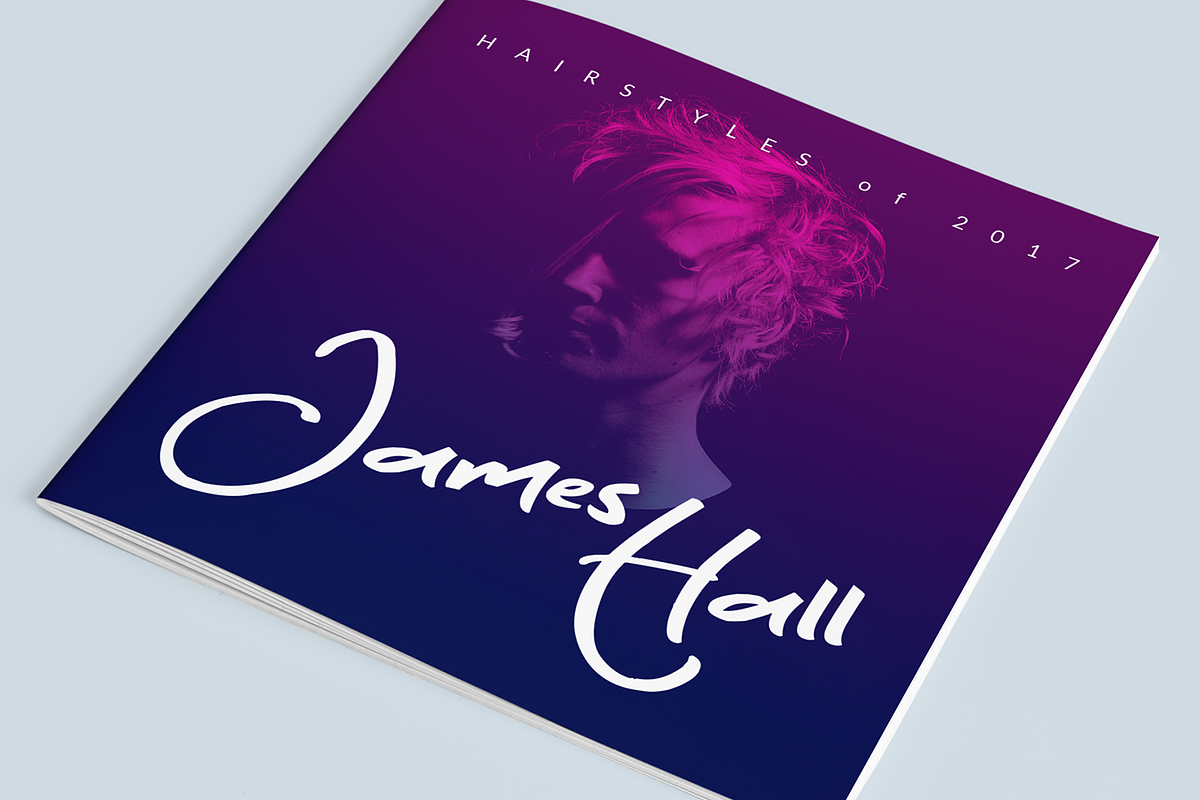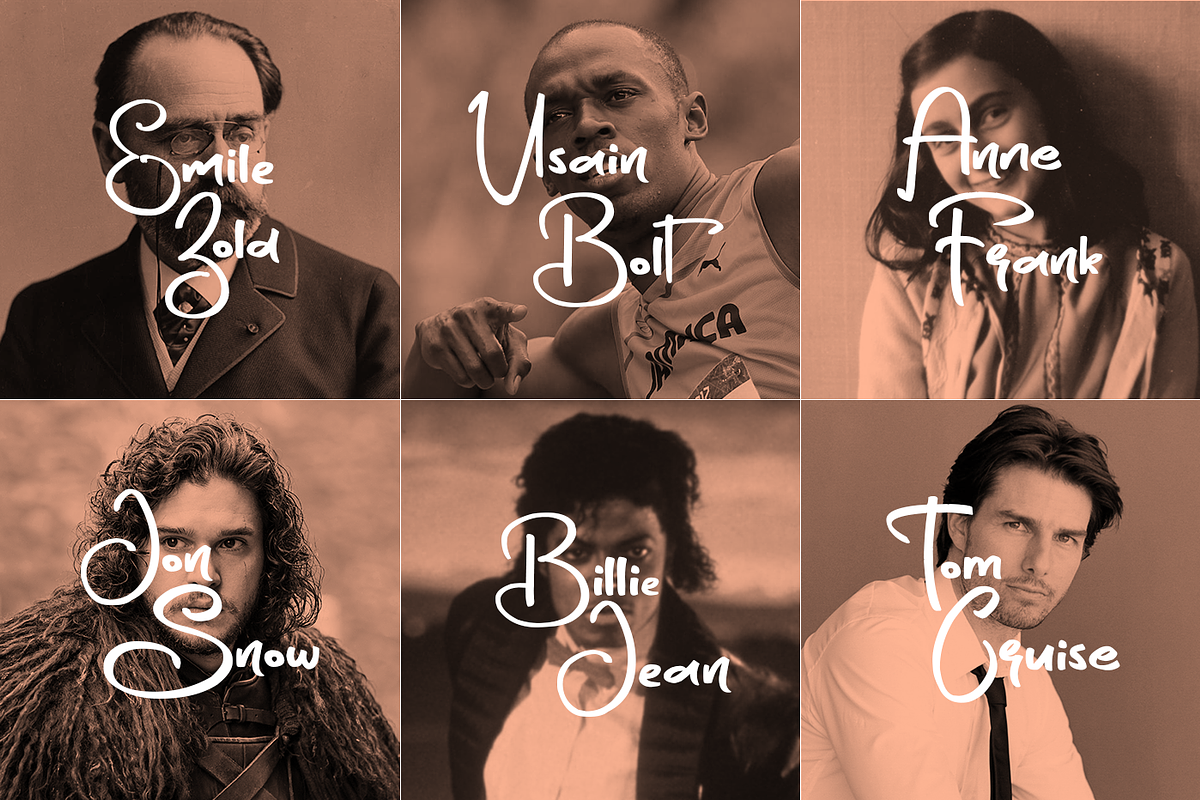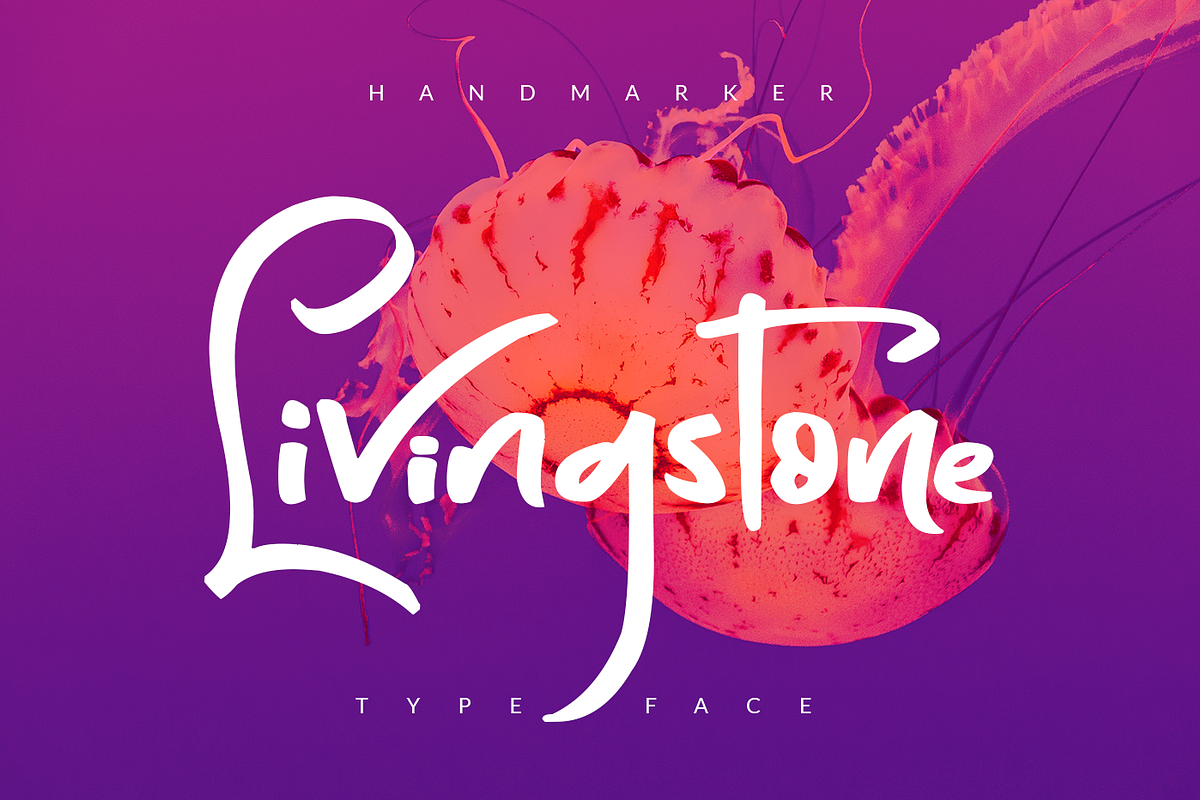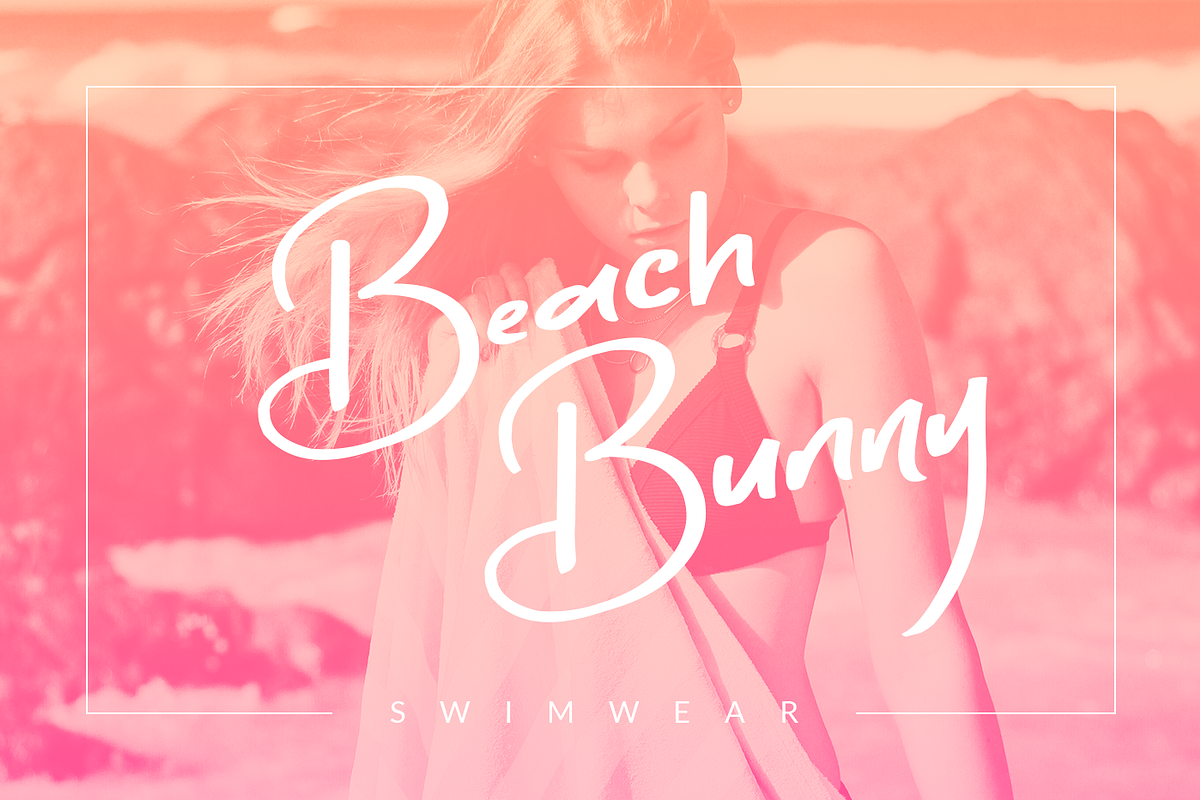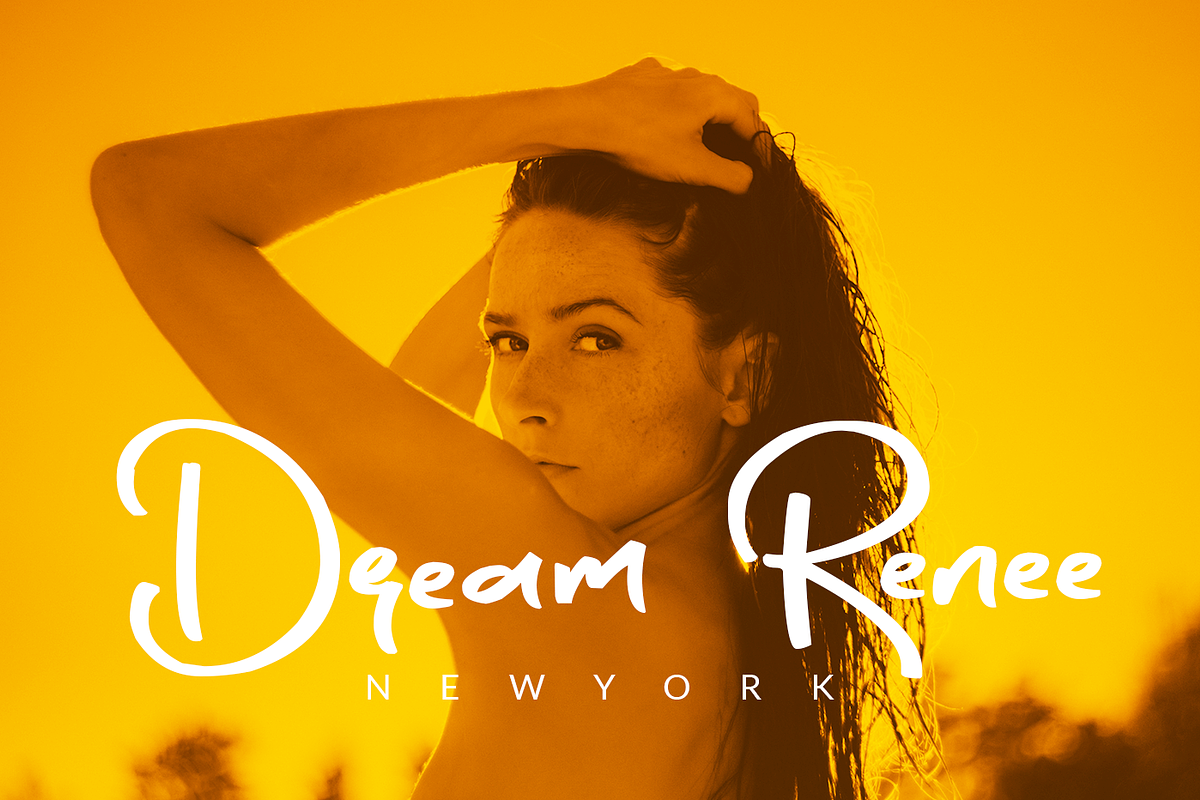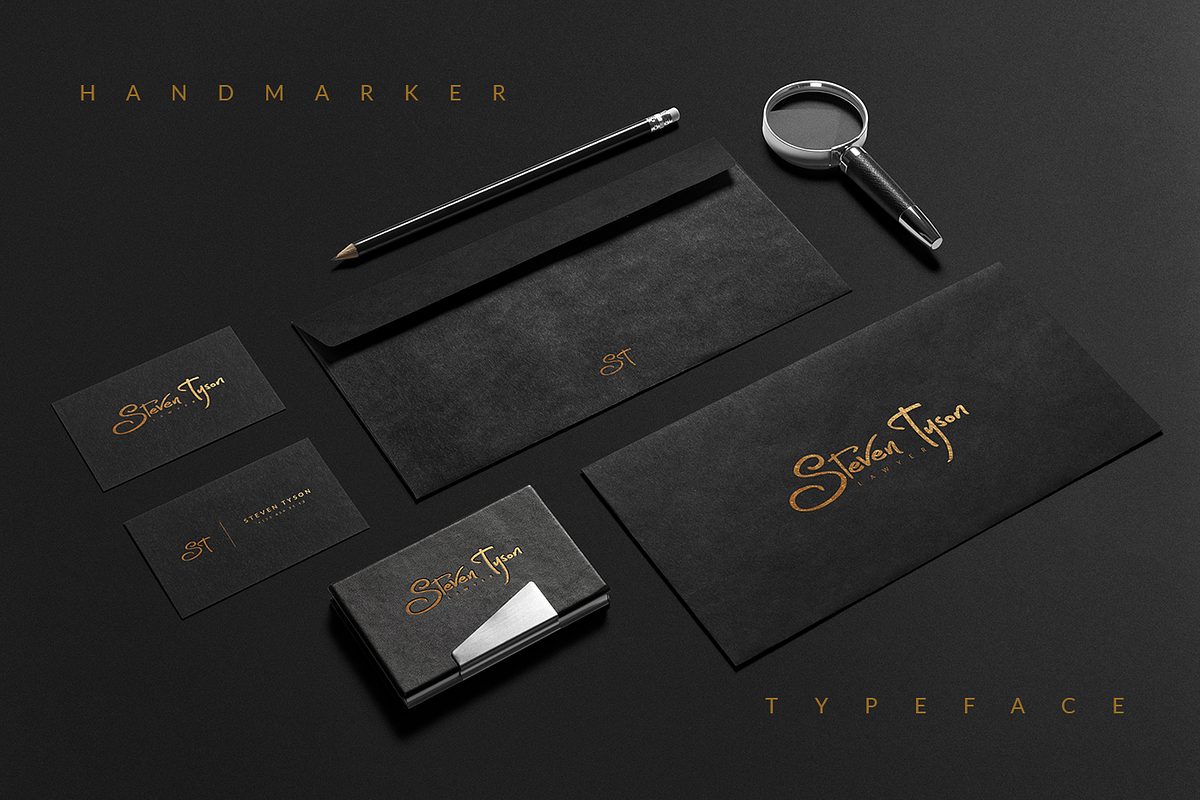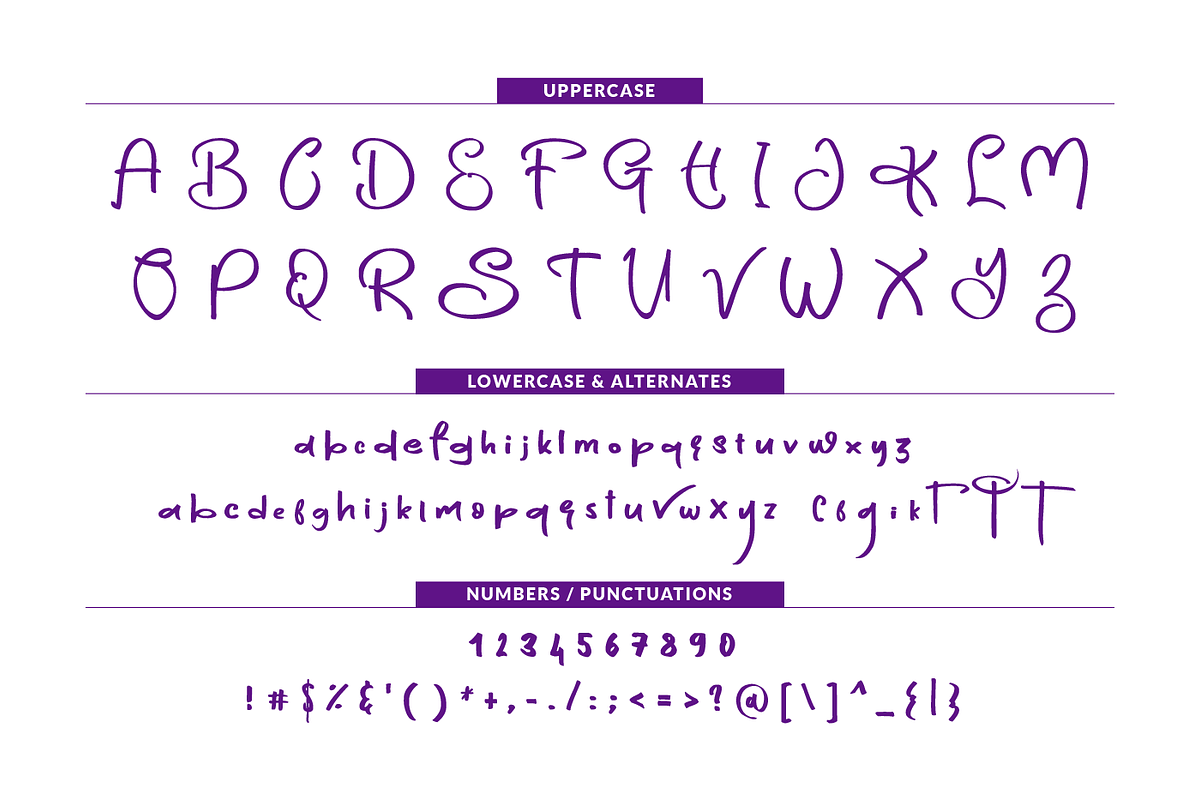
Livingstone
Livingstone introducing;A completely different design.Unique characters , handmade ,it will answer every need , it will sign great works.I hope you will like it.
GREAT FOR ;
- Characteristic company logos
- Blog pages
- Logo of brands
- Projects you need to utilize a premium font.
- The projects that require a font including lots of alternates.
- Numbers and Symbols
- Alternate Characters